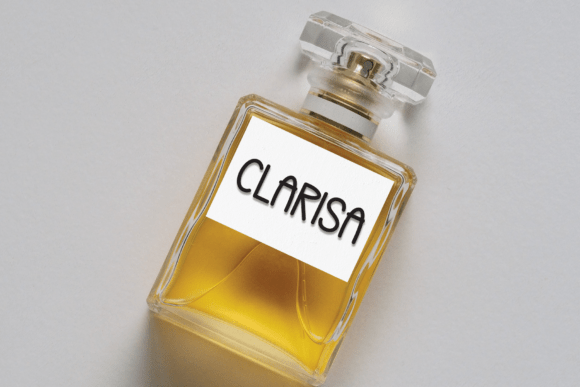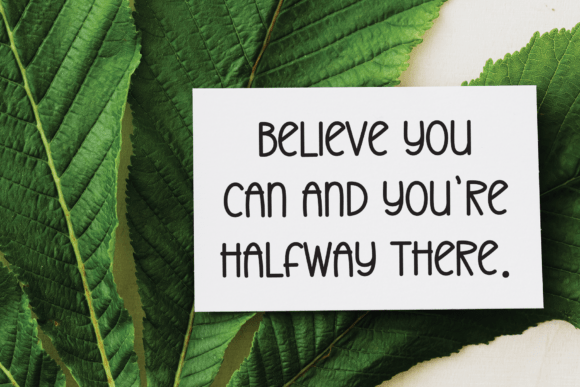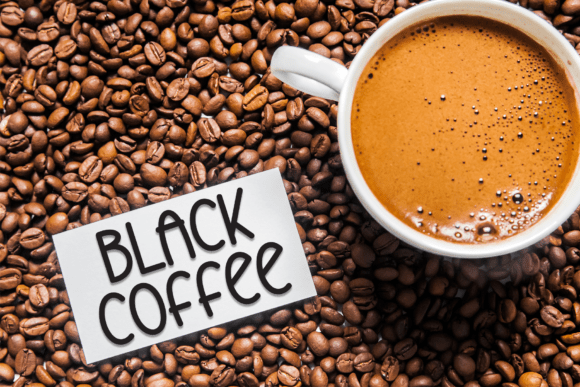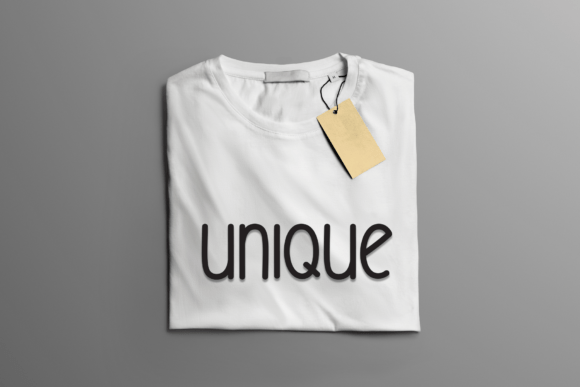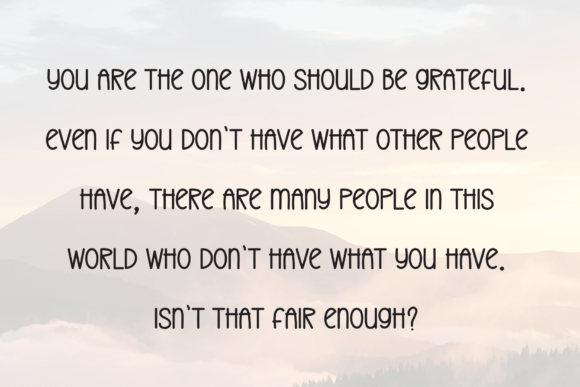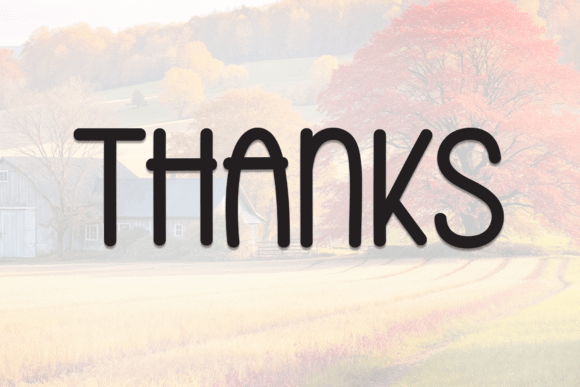
Introducing Autumn Farmhouse Font: The Perfect Blend of Cozy and Creative
As the seasons change and autumn arrives, designers and crafters are on the lookout for fonts that capture the warm, inviting essence of cozy country living. Look no further than Autumn Farmhouse Font, a charming and creative typeface that embodies the comforting, organic aesthetic of rural life. With its rounded, soft monoline strokes and slightly tall structure, this font exudes a sense of authenticity and handmade charm, making it perfect for a wide range of design projects.
The Characteristics of Autumn Farmhouse Font
Autumn Farmhouse Font features a unique blend of characteristics that set it apart from other typefaces. Its rounded, soft monoline strokes give it a gentle, approachable feel, while its slightly tall structure adds a touch of elegance and sophistication. The font’s simple, clean letterforms offer exceptional clarity, making it easy to read and understand, even at smaller sizes. The low contrast and uniform weight of the font make it highly versatile, suitable for both large display text and smaller labels.
Perfect for Seasonal and Rustic Designs
Autumn Farmhouse Font is ideal for designers and crafters looking to create seasonal and rustic designs that evoke a sense of cozy, natural warmth. Whether you’re working on craft projects, rustic branding, food packaging, farm-to-table menus, or DIY-themed social media content, this font is sure to bring a touch of authentic country charm to your designs. Its inviting, approachable warmth makes it perfect for creating designs that feel genuinely handmade, warm, and delightfully down-to-earth.
One of the standout features of Autumn Farmhouse Font is its versatility. With its low contrast and uniform weight, this font can be used for a wide range of design projects, from large display text to smaller labels. Whether you’re creating a bold, eye-catching headline or a more subtle, background text, Autumn Farmhouse Font is sure to deliver. Its clean, simple letterforms make it easy to read and understand, even at smaller sizes, making it perfect for use in a variety of contexts.
Use Autumn Farmhouse Font in Your Designs
If you’re looking for a font that captures the essence of cozy country living, look no further than Autumn Farmhouse Font. With its charming, creative style and authentic, hand-drawn look, this font is sure to bring a touch of warmth and personality to your designs. Use it for seasonal craft projects, rustic branding, food packaging, farm-to-table menus, and DIY-themed social media content, or experiment with it in other design contexts to see the amazing results for yourself.
Key Features of Autumn Farmhouse Font
- Charming, creative style font with a cozy, organic aesthetic
- Rounded, soft monoline strokes and slightly tall structure
- Simple, clean letterforms with exceptional clarity
- Low contrast and uniform weight for versatility
- Ideal for seasonal craft projects, rustic branding, food packaging, and more
In conclusion, Autumn Farmhouse Font is a must-have for designers and crafters looking to add a touch of cozy country charm to their designs. With its unique blend of characteristics, versatility, and PUA encoding, this font is sure to become a favorite in your design arsenal. So why wait? Download Autumn Farmhouse Font today and start creating your own warm, inviting designs that capture the essence of autumnal country living.